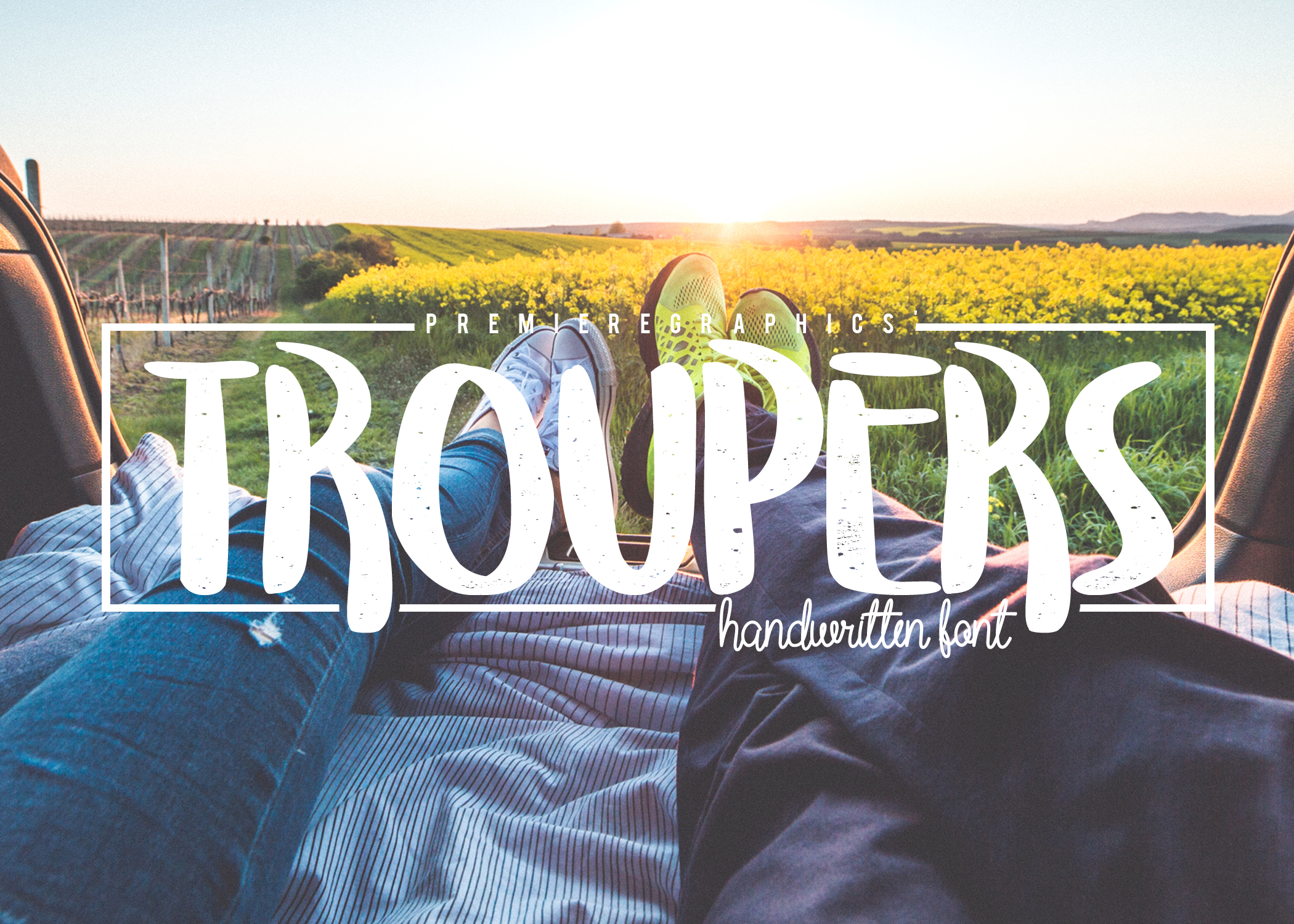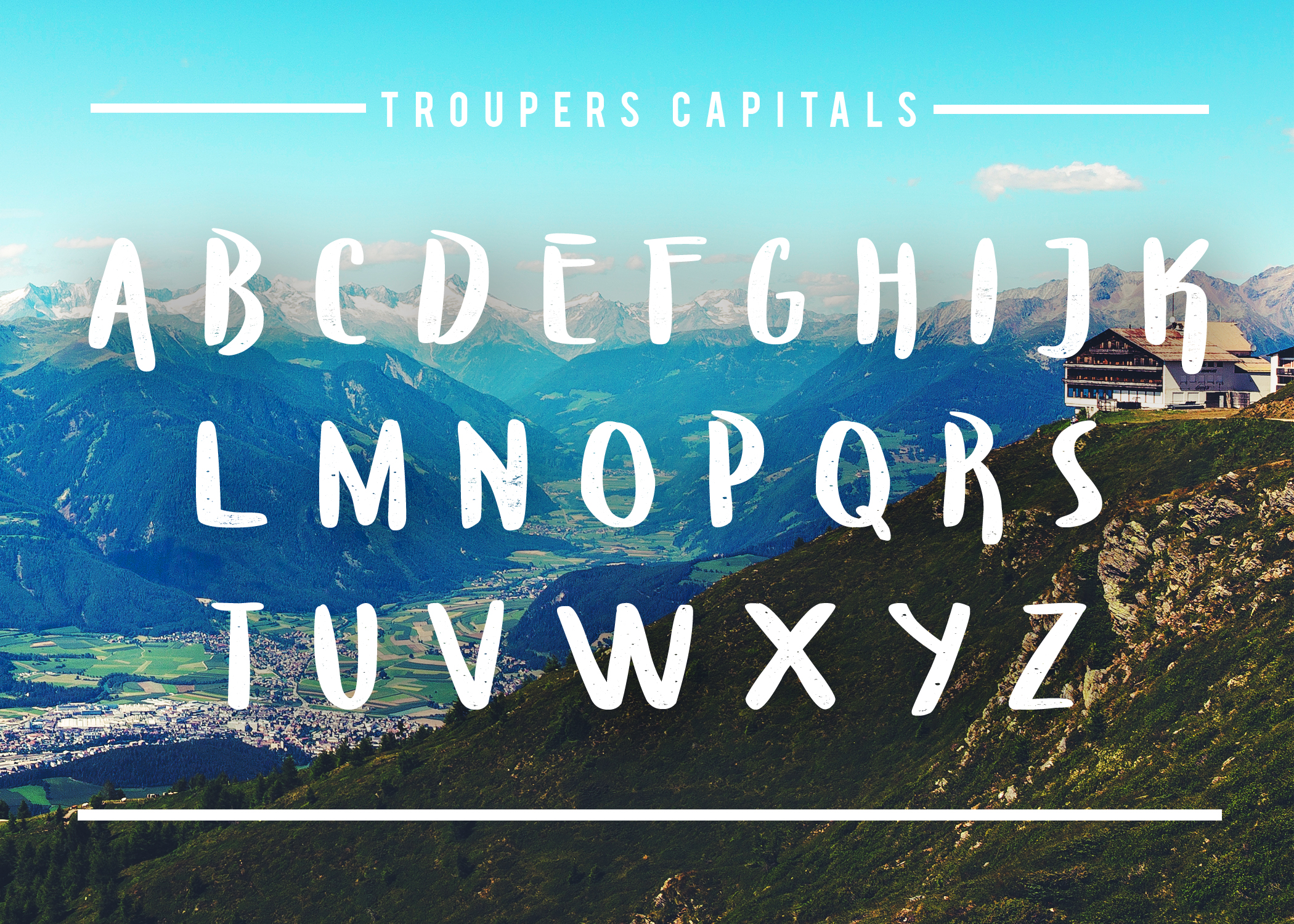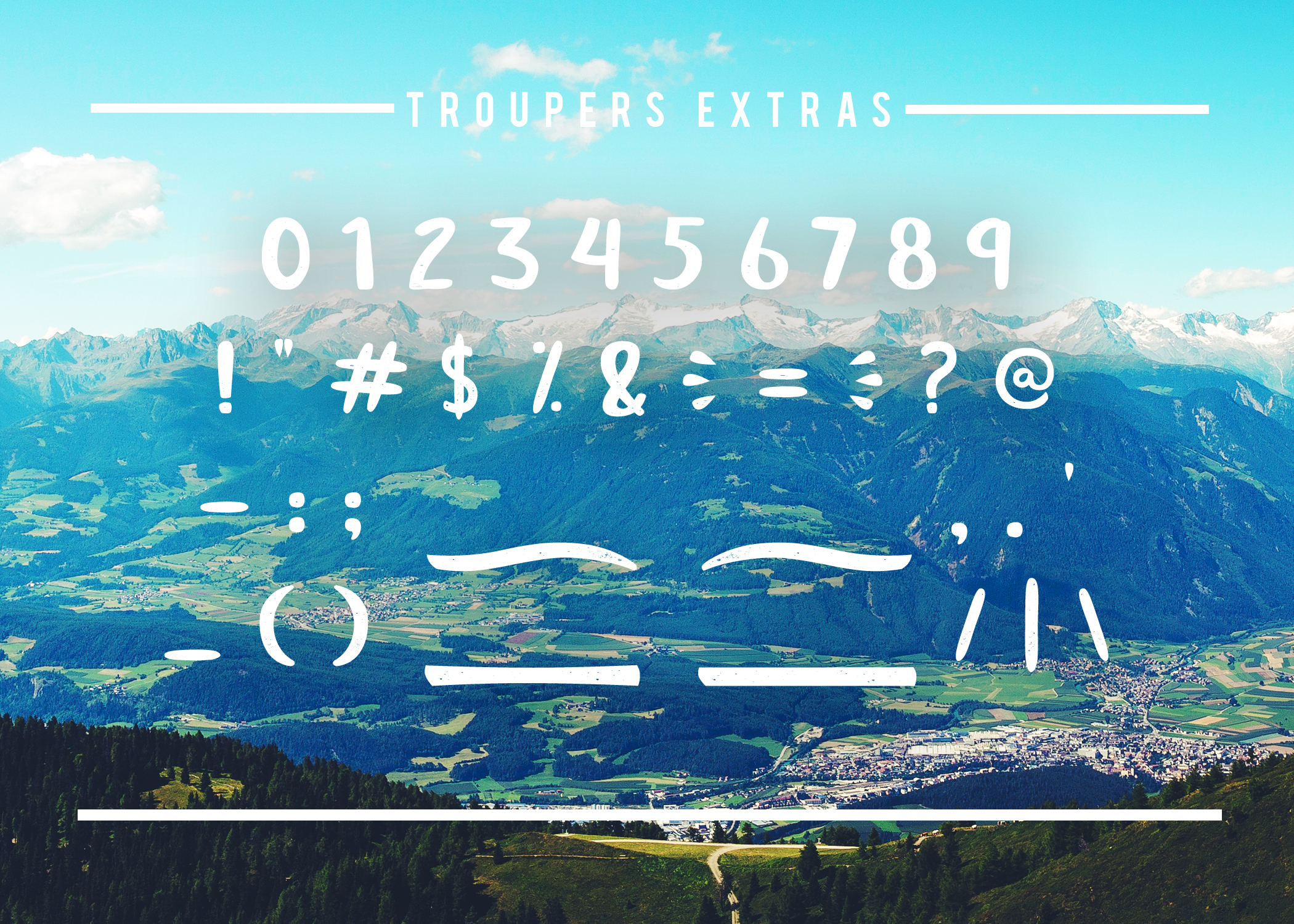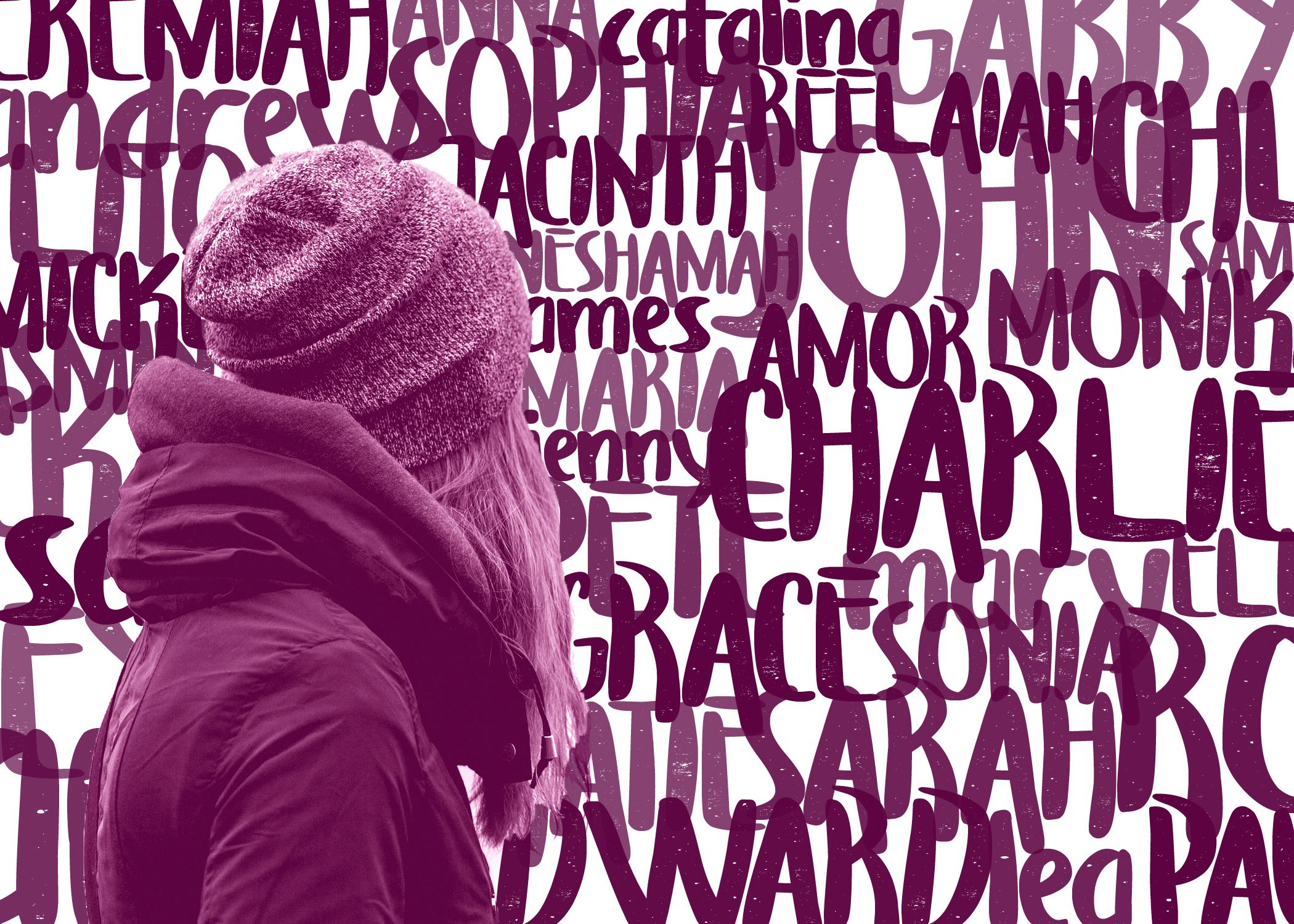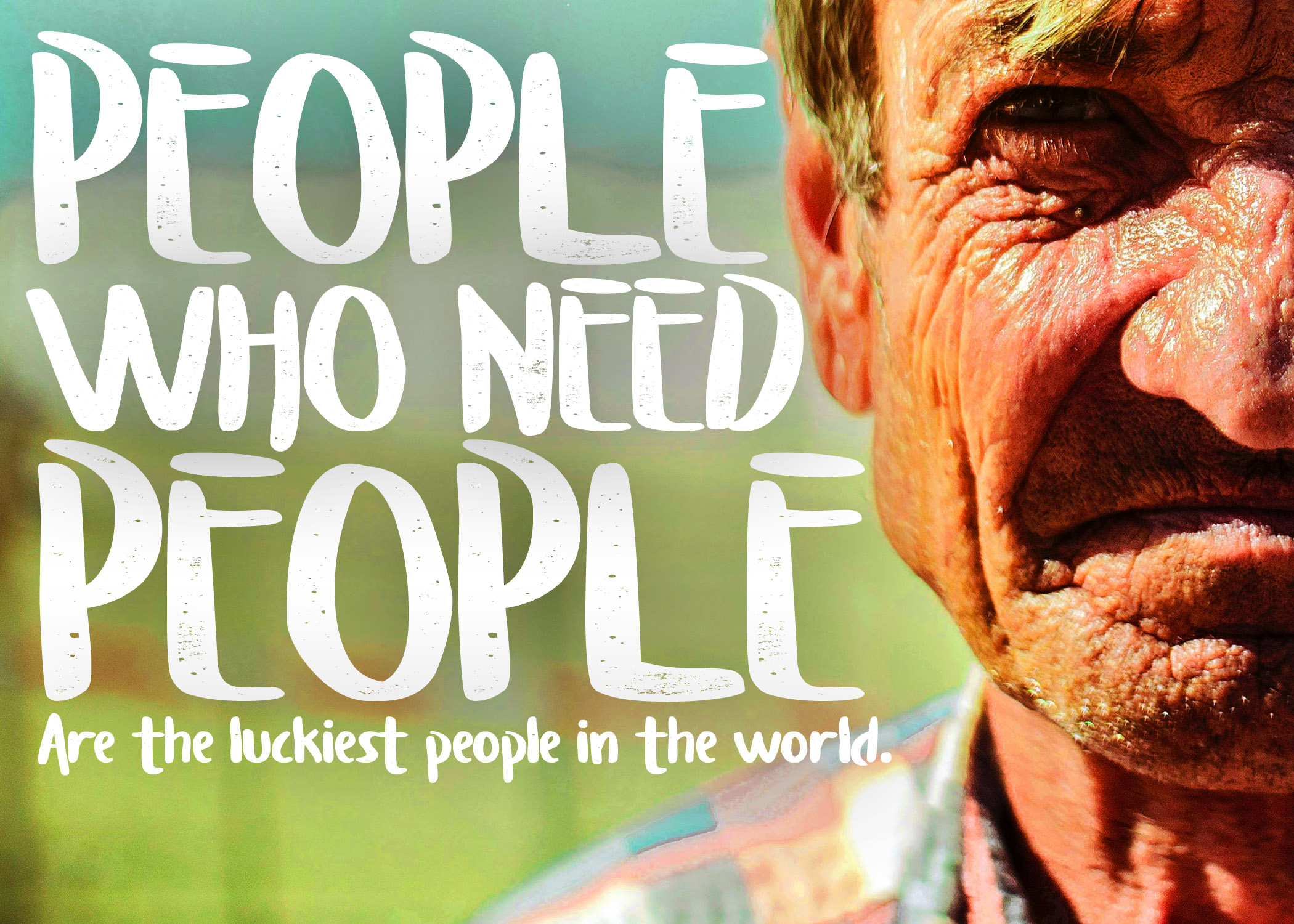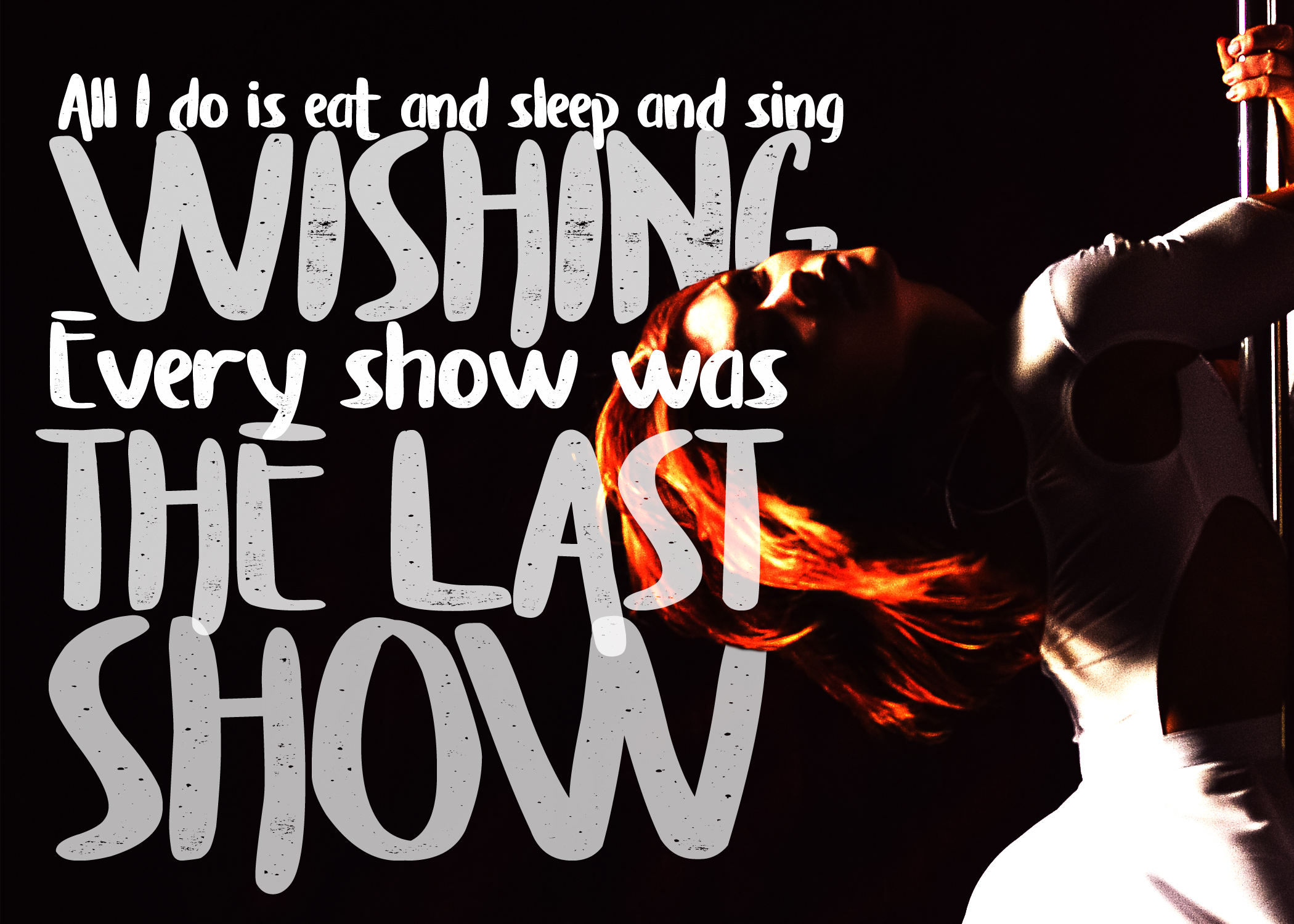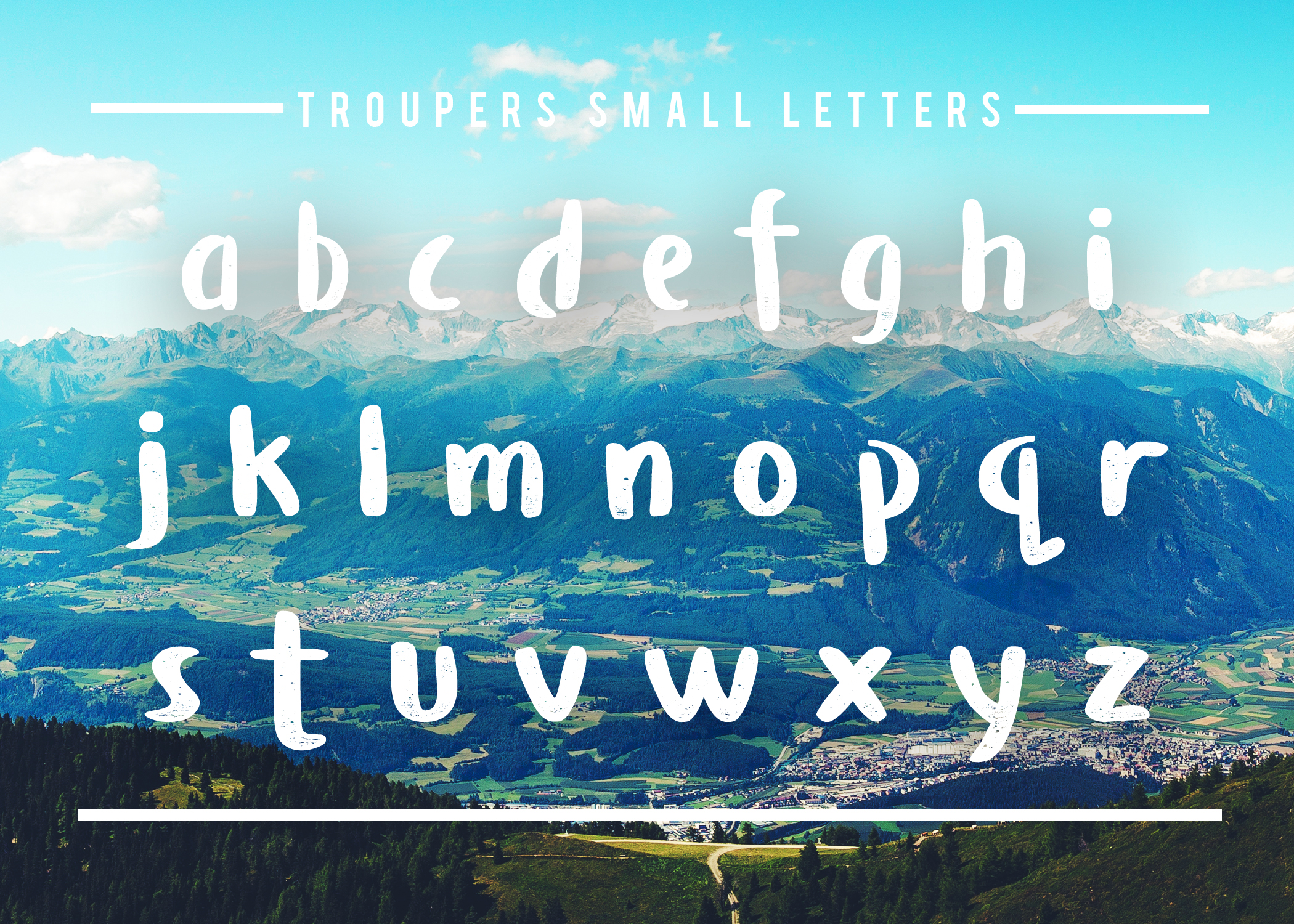
Troupers Font
About Troupers Font
Troupers is your feel-good formula for better graphic design. It’s carefully handwritten to make a friendly and playful, readable font.